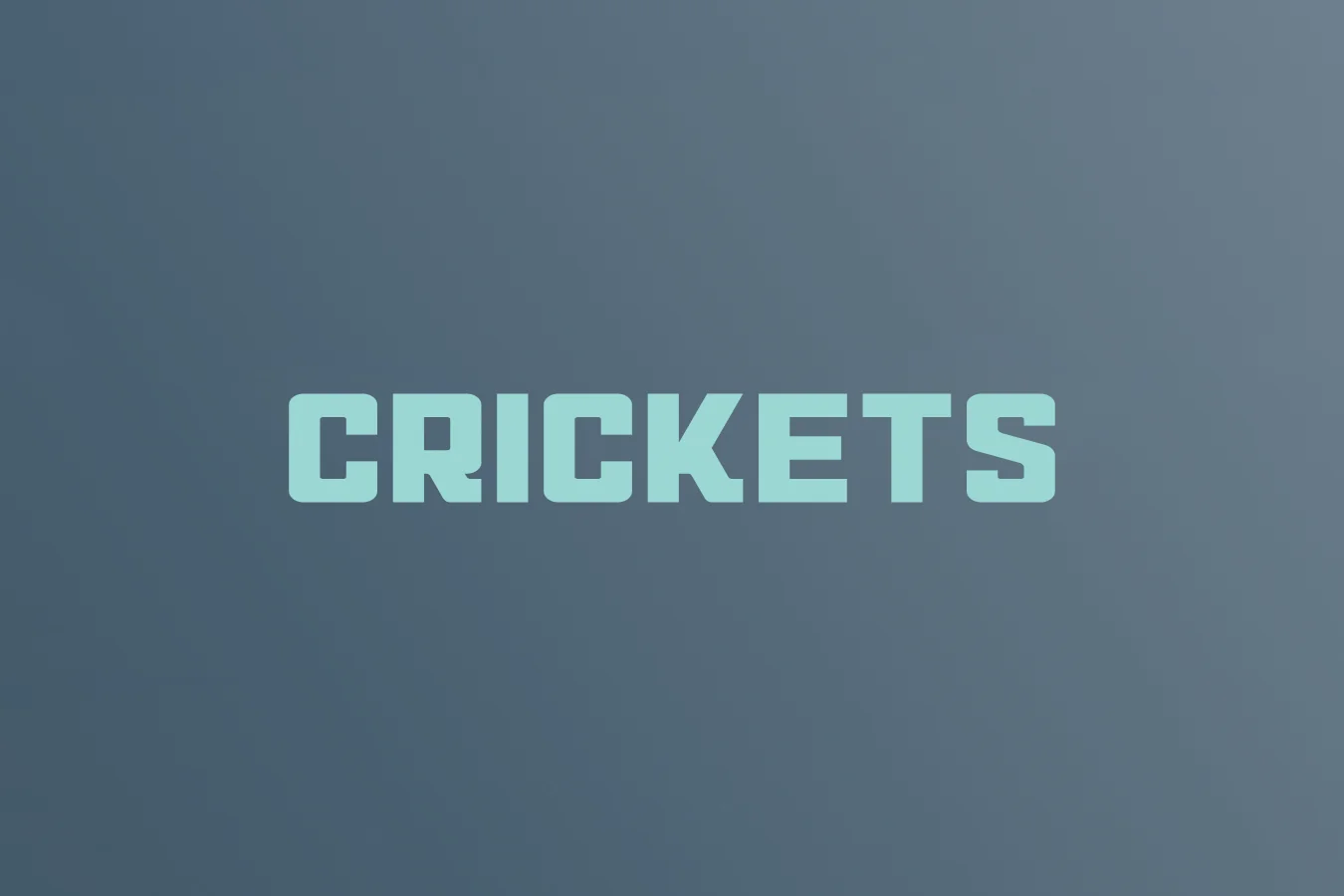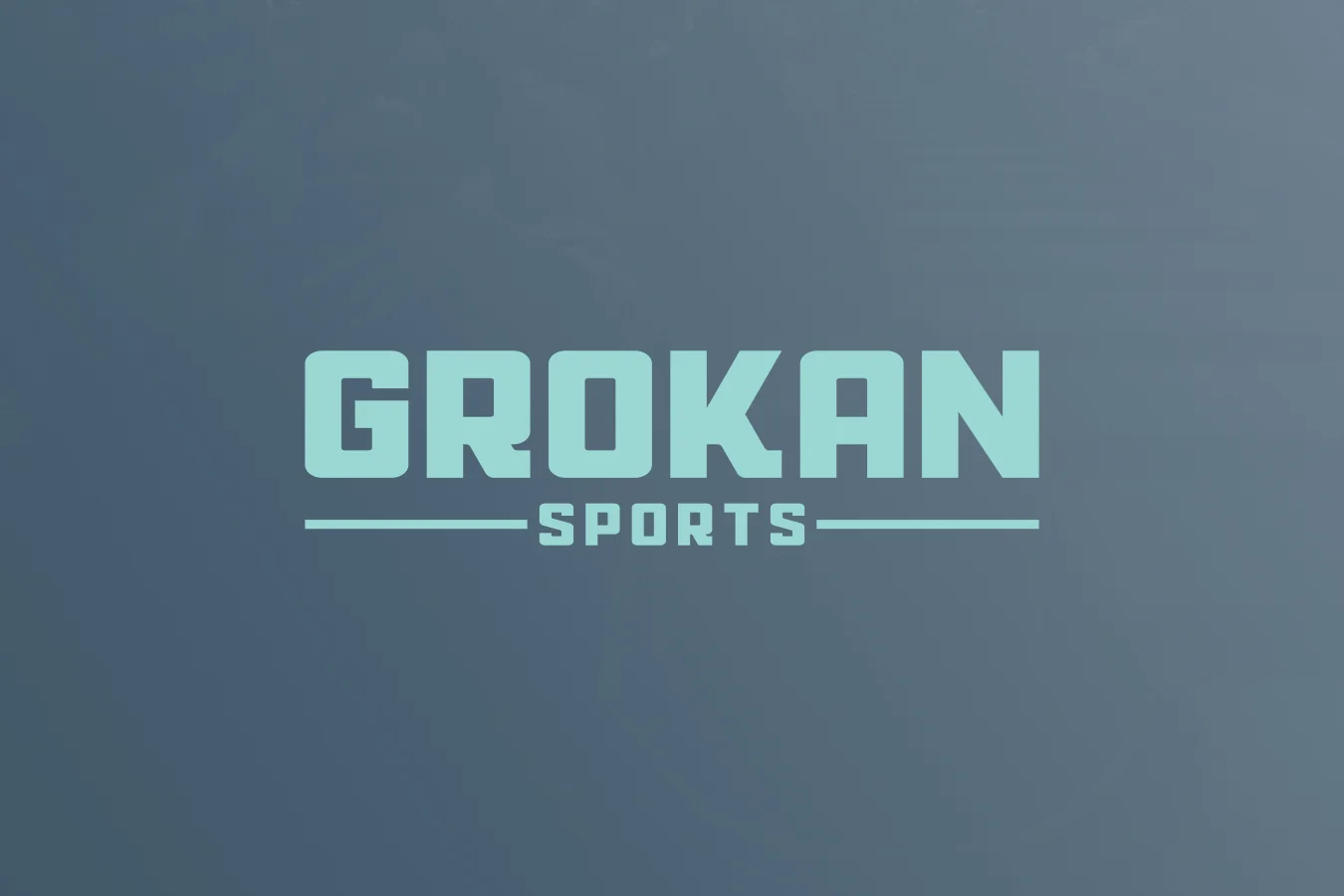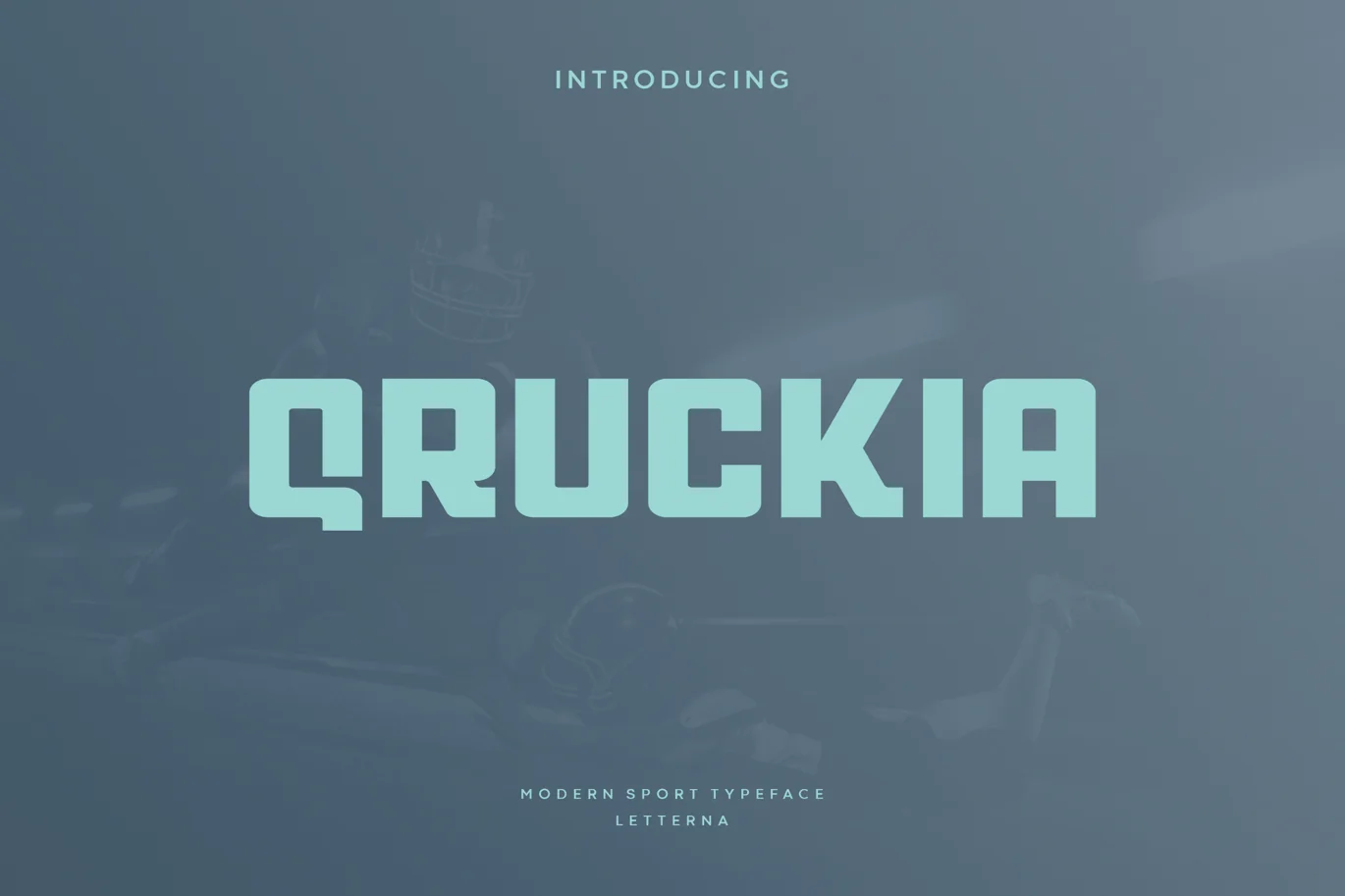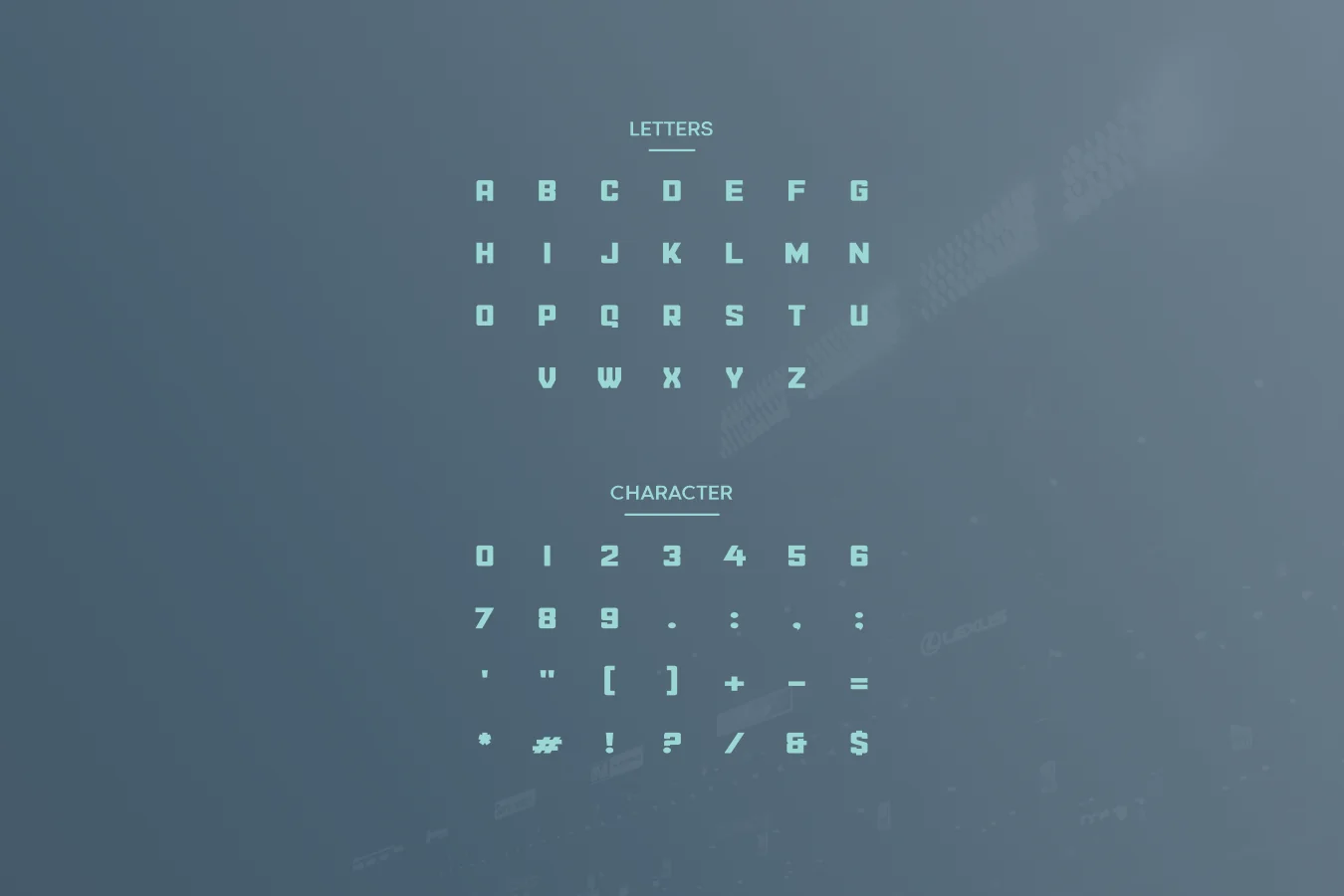
Qruckia – Modern Sport Typeface
Introducing Qruckia, a rugged athletic block inspired by the history of football. It’s letterforms feature unorthodox crossbars and other stylistic cues to initiate a visual flow that isn’t as evident in the more rigid traditional athletic block typeface, giving Qruckia an organic appeal.